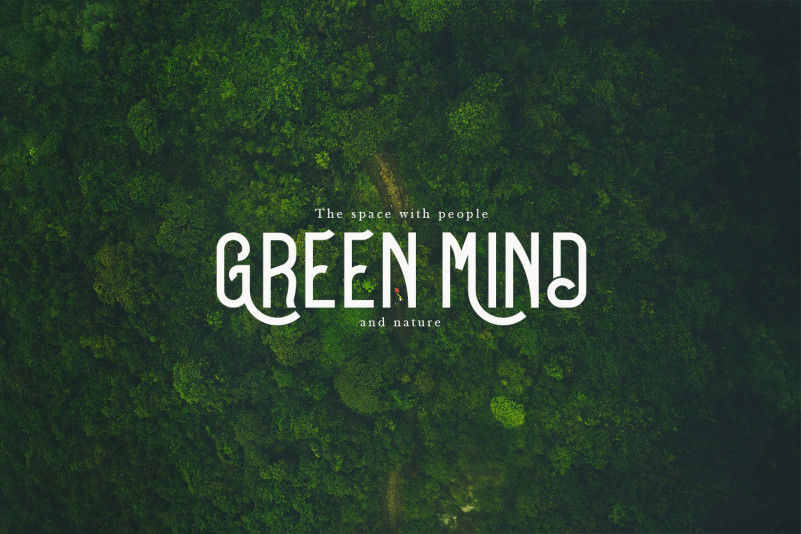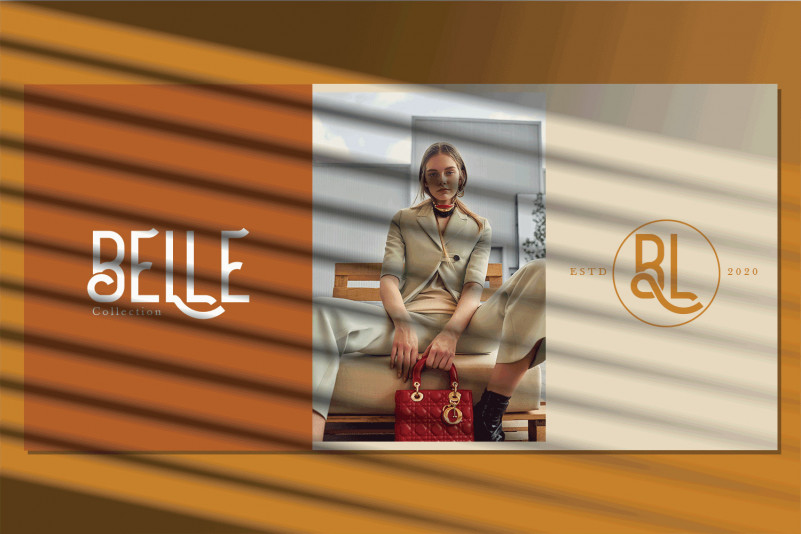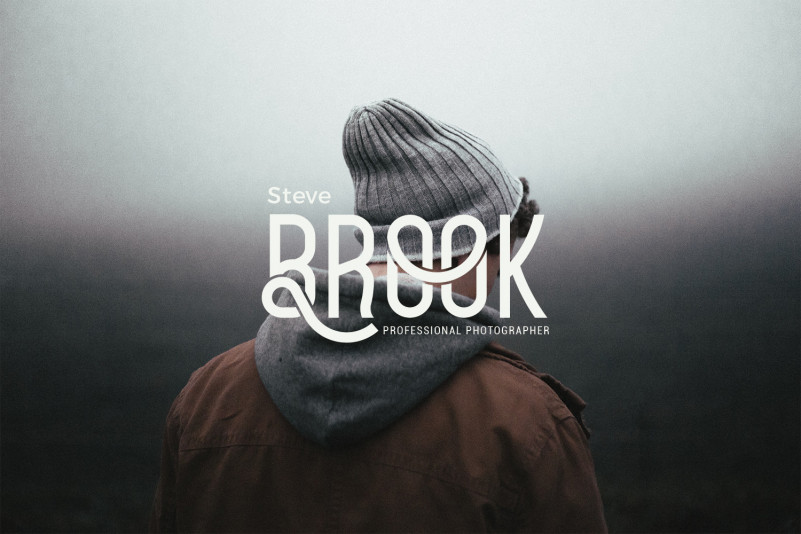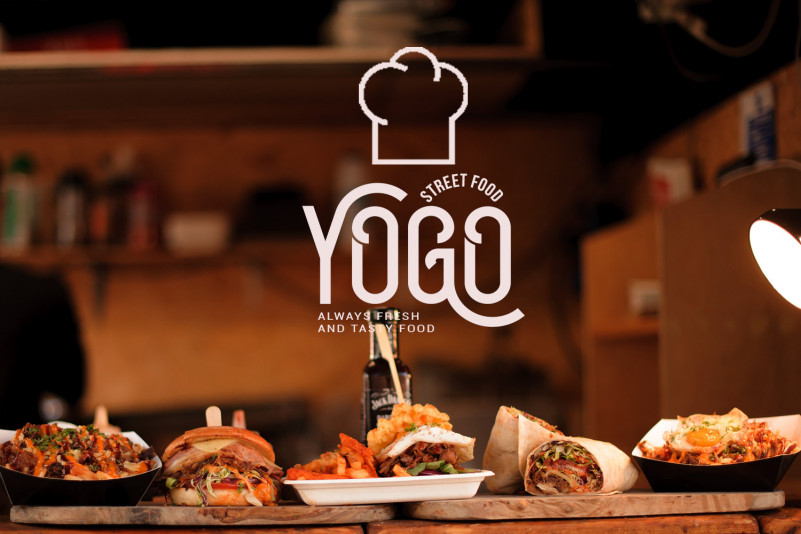
Boysand Display Font
Boysand Display Font is a san serif font that has a modern vintage style, Boysand Display Font is completed with uppercase, lowercase, and ligatures, so provides unlimited design possibilities, This font is great for your work such as posters, logos, magazines, covers, banners, t-shirts and headers, or even large scale artwork.